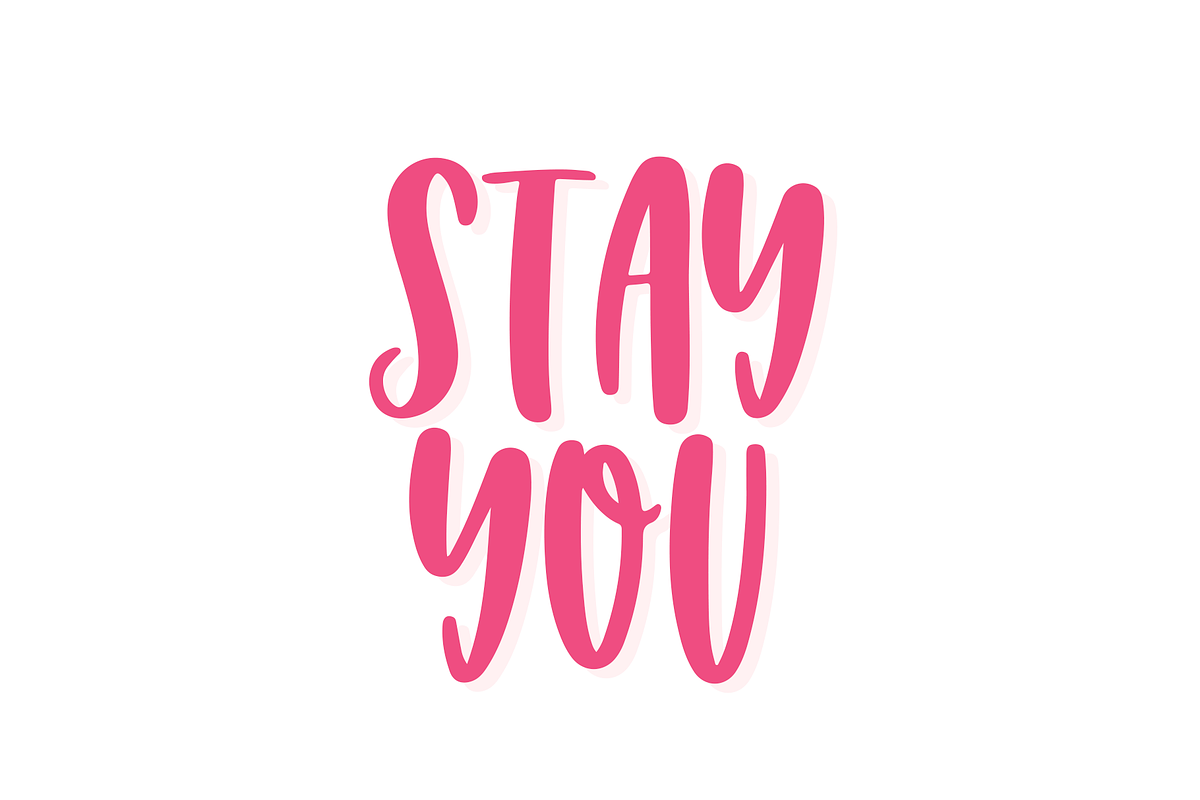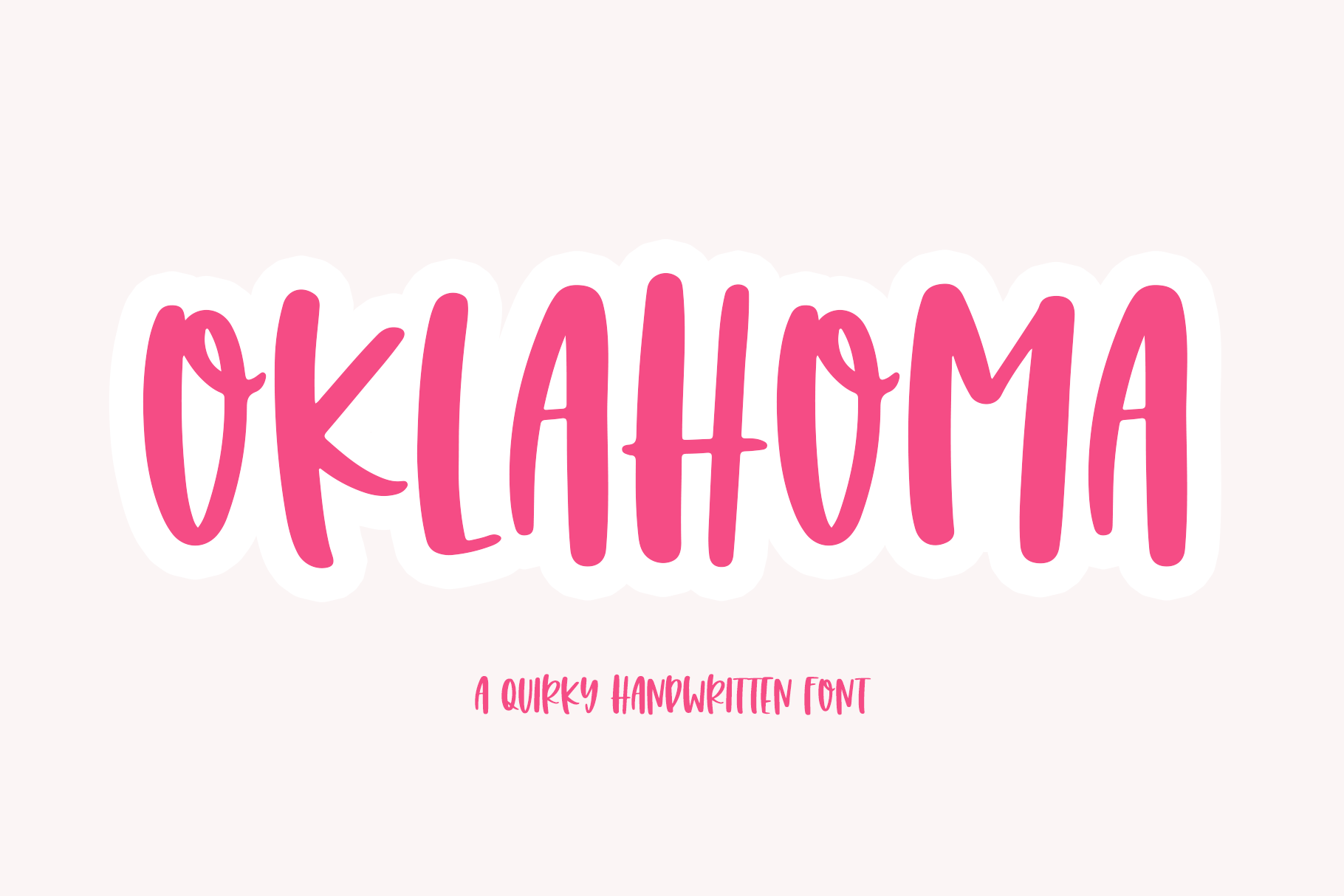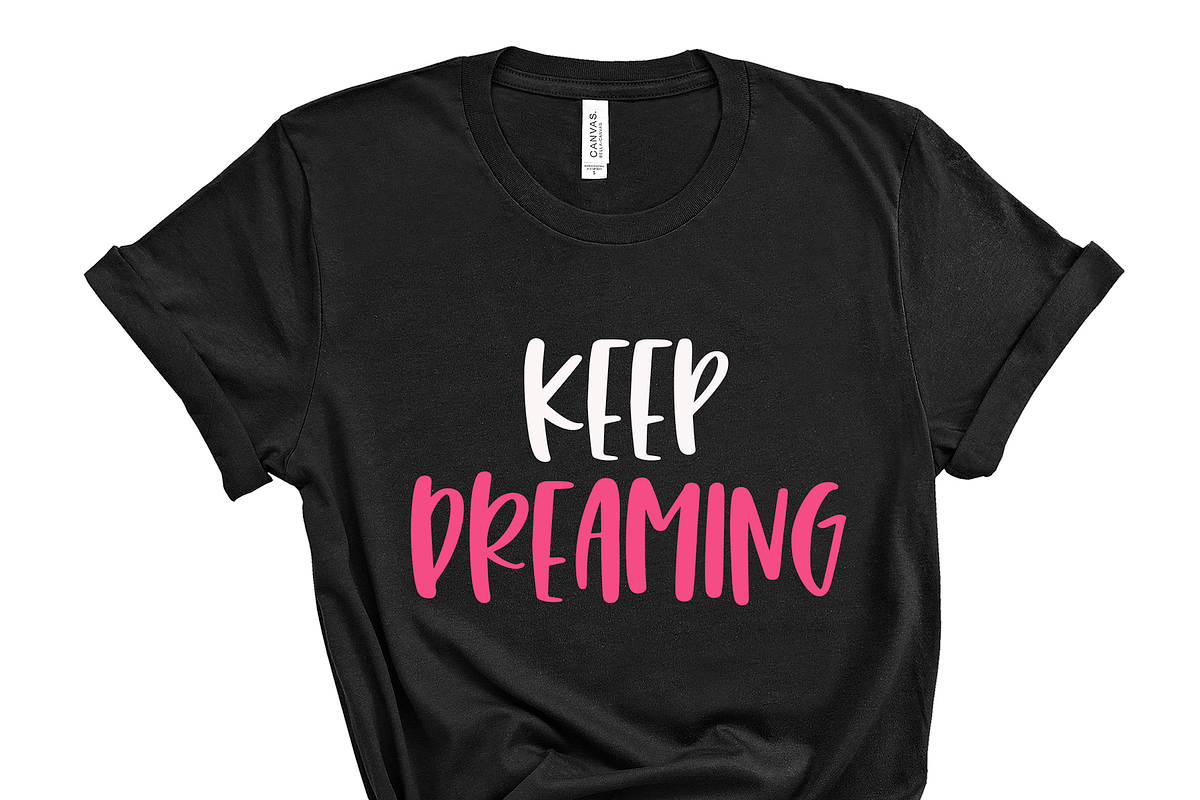
Oklahoma | Quirky Handwritten Font
Oklahoma is a fun + quirky handwritten font.
This font is perfect for all of your crafting projects, svg designs, shirts, mugs, branding, logos, children's designs, and more!
Most accent characters included.